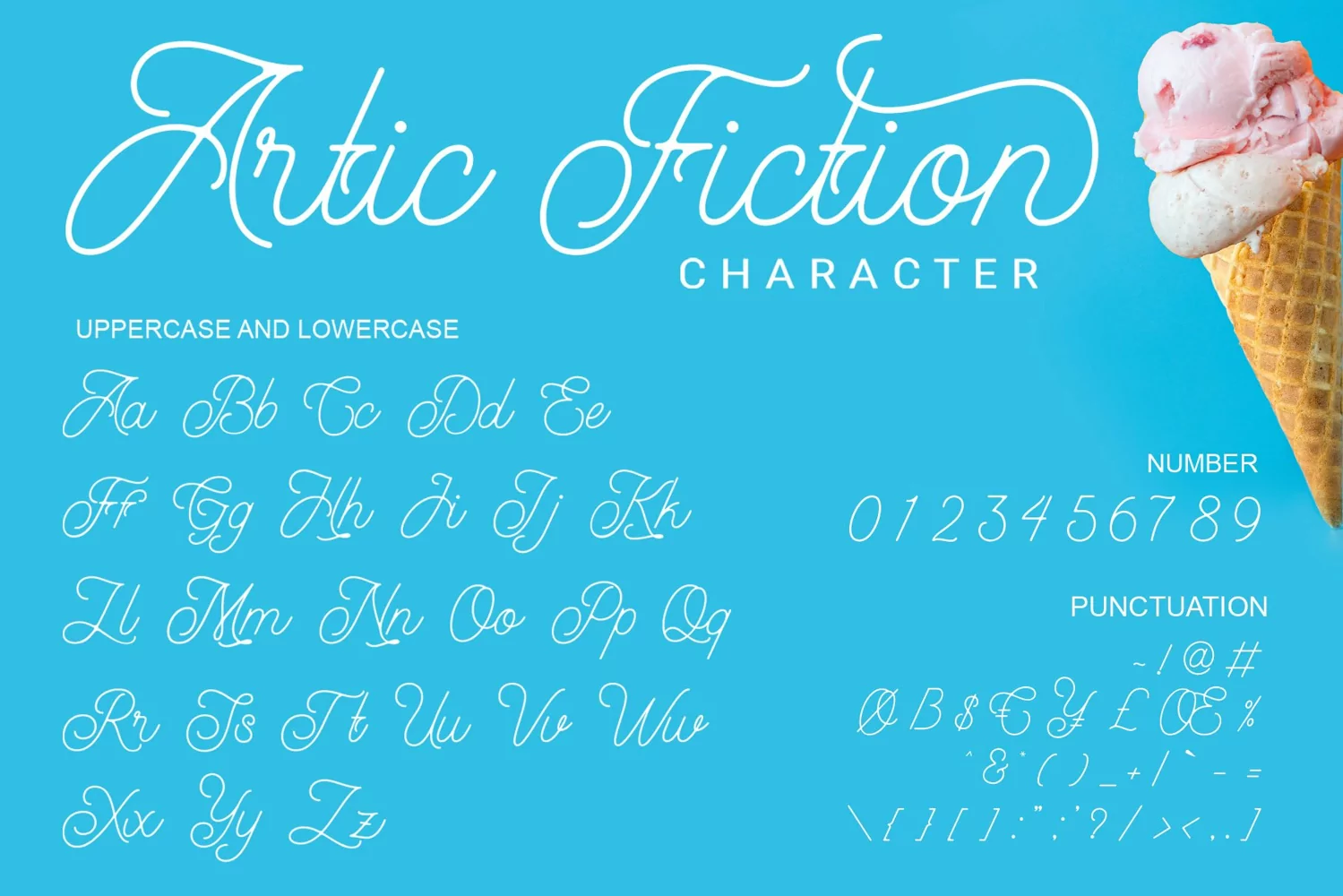
Artic Fiction
This font was inspired from lettering design that i saw online, It was crafted by hand specially to add natural handmade feeling in its brand identity than i make it clean with pentool.
If you looking for Script Monoline Font for your authentic design, this font is a great choice for that. Artic Fiction is original hand writting font its perfect for lettering design or event logotype.
Artic Fiction font is very good looking in logo, labels, t-shirt prints, product packaging, invitations, advertising and others.